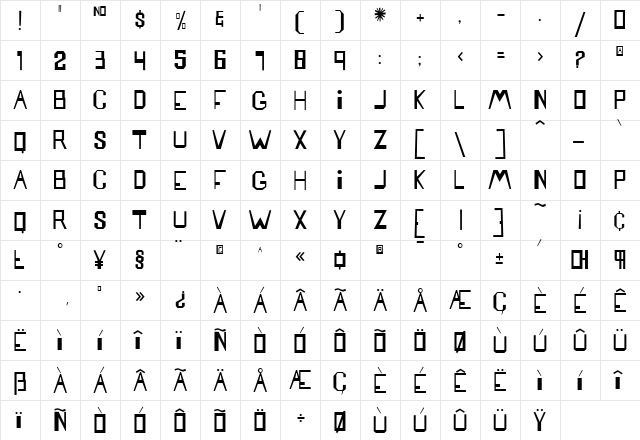
Mattress Medium Font Preview
Mattress Medium
Design Context for Mattress Typeface
Mattress takes a measured approach to typography — its balanced proportions and neutral character make it a reliable workhorse for both digital and print work.